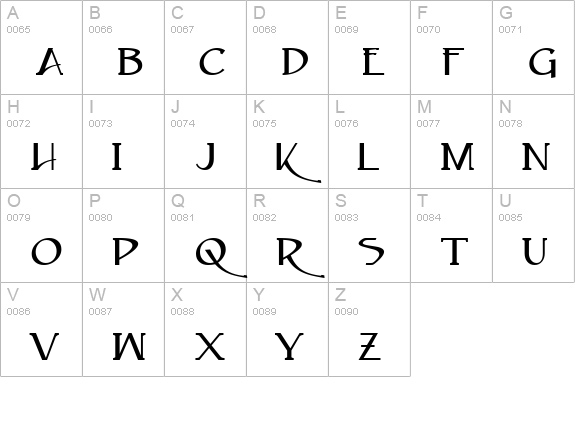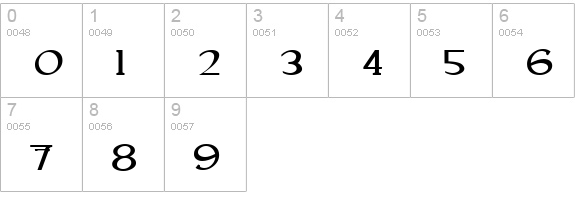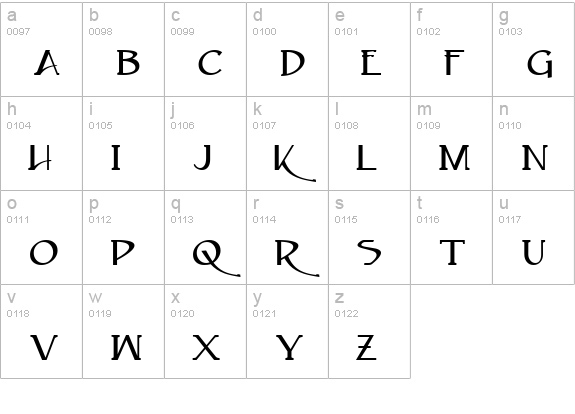
Caeldera Font Details
Caeldera is a breathtakingly beautiful font that effortlessly captures attention with its elegant and sophisticated design. This font exudes a sense of timeless charm, making it perfect for a wide range of creative projects, from branding and logo design to invitations and editorial layouts. With its graceful curves and balanced letterforms, Caeldera adds a touch of refined elegance to any design. Its versatility allows it to be used in both formal and informal contexts, making it a truly versatile typeface that can adapt to any project. One of the most remarkable aspects of Caeldera is that it is completely free to download. Yes, you read that right - this exceptional font is freely available at FontsMarket.com, where designers and creatives can access it without any cost. This makes Caeldera not only a highly desirable font, but also an incredibly accessible one. Downloading Caeldera from FontsMarket.com is a breeze, ensuring that designers can quickly and easily incorporate this stunning font into their creative endeavors. Whether you're a seasoned professional or a budding designer, Caeldera's free availability allows you to experiment and explore its limitless possibilities without any barriers. So, why wait? Unlock the potential of your design projects with Caeldera - a free font that combines beauty, versatility, and accessibility. Download it today from FontsMarket.com and let your creativity soar to new heights.